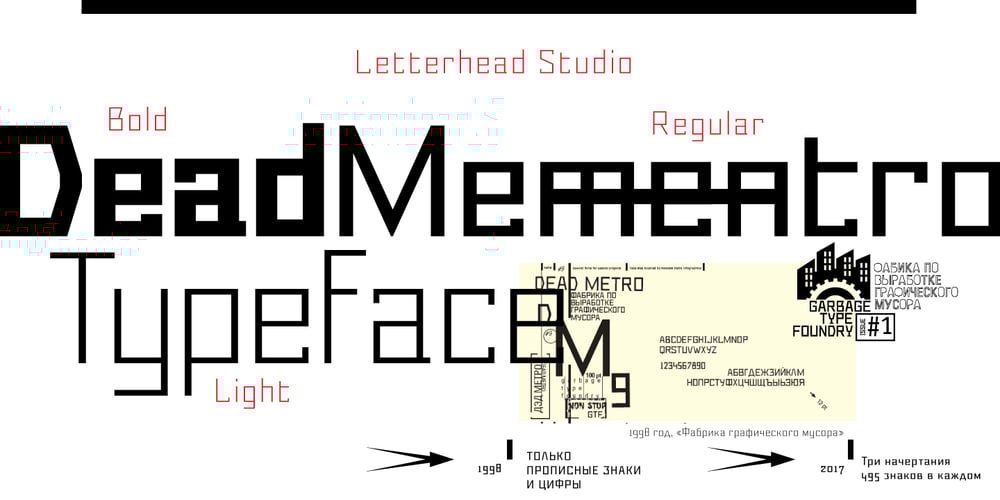
Dead Mementro
Dead Mementro font
Dead Mementro Font Family was designed by published by Letterhead Studio-VG. Dead Mementro contains 3 styles and family package options. Dead Mementro typeface (ex Dead Metro) has simple and strong shapes. It is a little bit narrow sans serif typeface with brutal constructions of characters. The first edition of typeface — Dead Metro — was realised in 1998 as the part of Garbage Type Foundry project. Now Dead Mementro has more characters and styles.